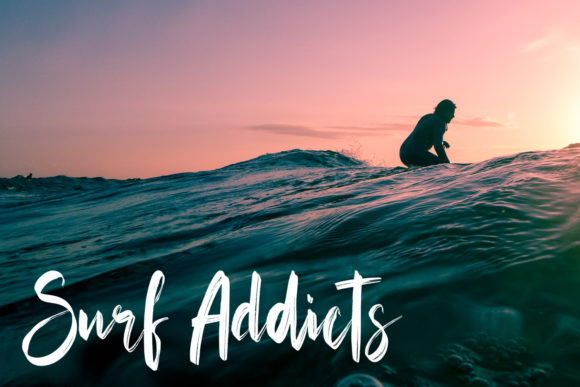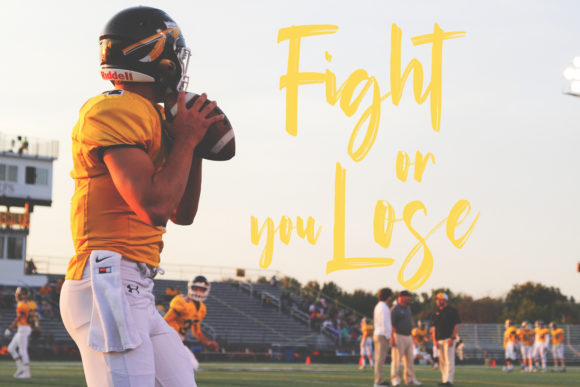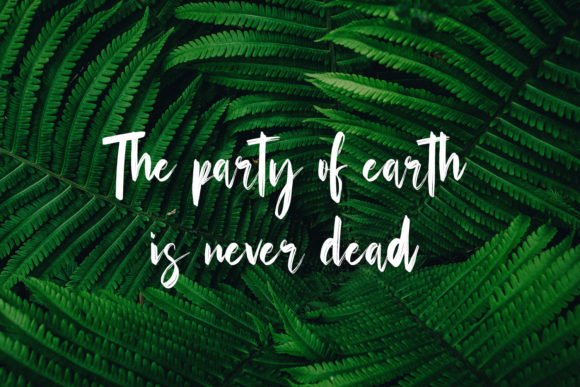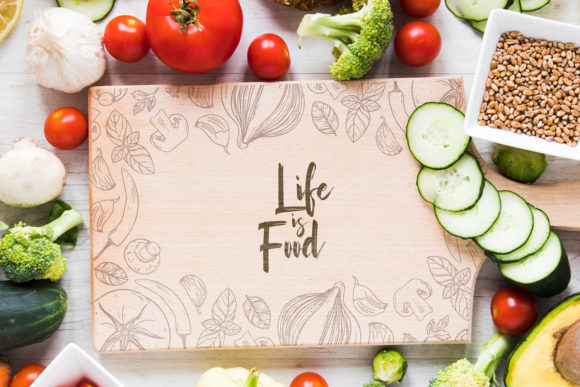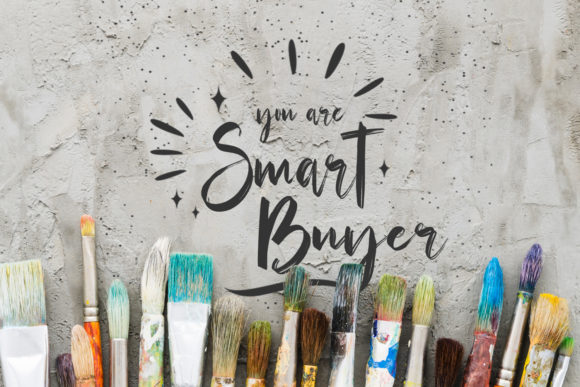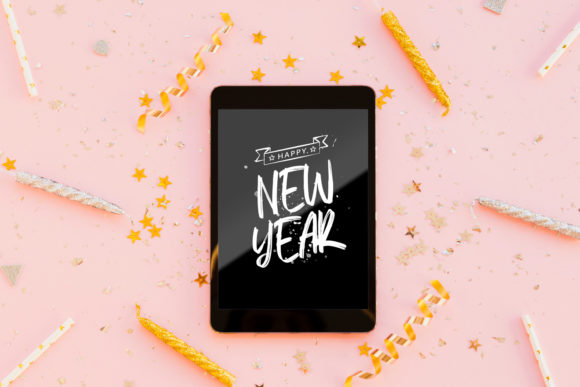
Starstuck Font
About Starstuck Font
Starstuck is a casual, bold handwritten font, created by using a brush pen. Clean and a little bit quirky, this font is the perfect fit for all of your logos, branding, social media, and crafty DIY projects.